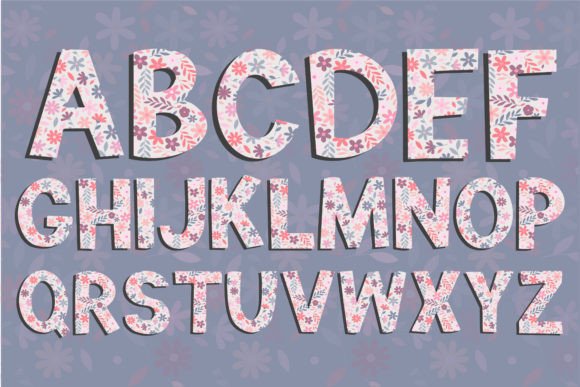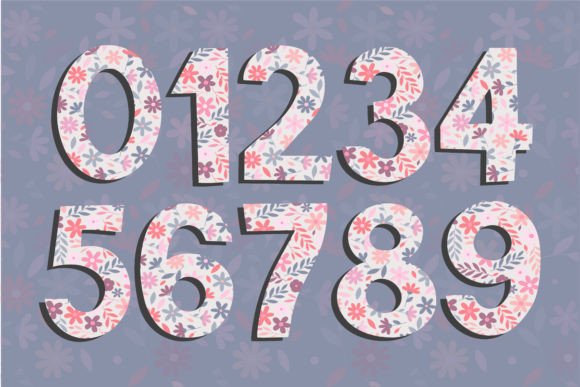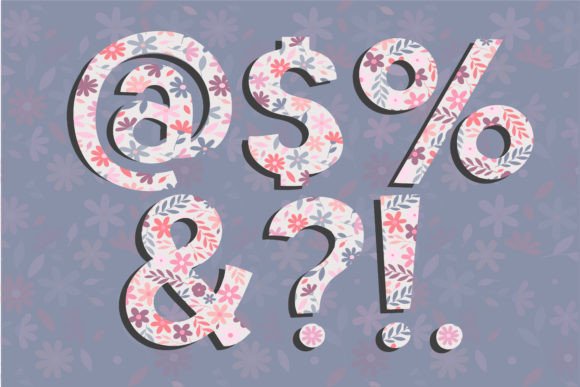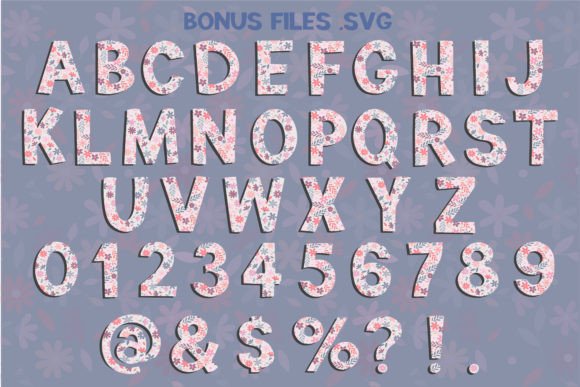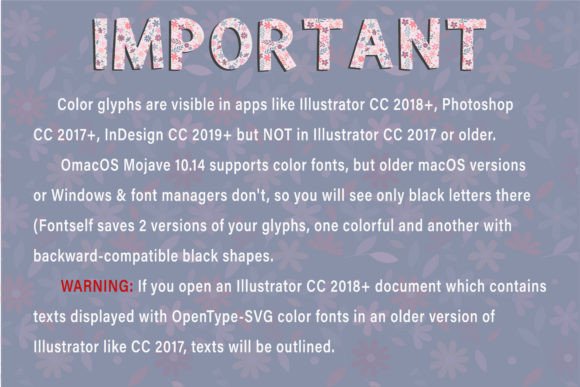
The Blooming Beauty of Flora Font: A Designer’s Delight
I still remember the design project that led me to discover Flora Font. I was working on a whimsical gardening brochure, and my client requested a font that would add a touch of nature and playfulness to the text. As I scrolled through font libraries, I stumbled upon Flora Font, and it was love at first sight! ✨ The vibrant colors, unique flower patterns, and charming details instantly captured my heart. In this article, I’ll share my experience with Flora Font, its features, and how to make the most of it in your designs.
An Honest Review of Flora Font
- 🌼 Unique and colorful flower patterns for each letter, making it perfect for feminine-themed designs
- ✨ High-quality, intricate details that add a touch of elegance to any text
- ✅ Easy to read and understand, despite its decorative nature
- 🎨 Versatile and suitable for various design projects, from gardening to wedding themes
While Flora Font is a stunning addition to any design, there are a few things to consider: 🤔
- ⚠️ Limited use in formal or professional designs, as it may come across as too playful
- ⚠️ May not be suitable for small font sizes, as details may get lost
The Designer Inspiration Behind Flora Font
Flora Font was designed with the intention of bringing a touch of nature and playfulness to typography. The designer aimed to create a font that would evoke feelings of joy, elegance, and whimsy. By incorporating unique flower patterns and vibrant colors, Flora Font has become a stunning addition to the world of typography.